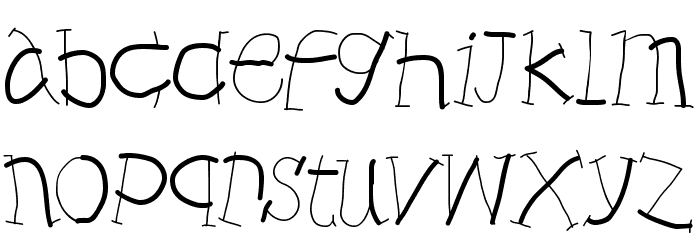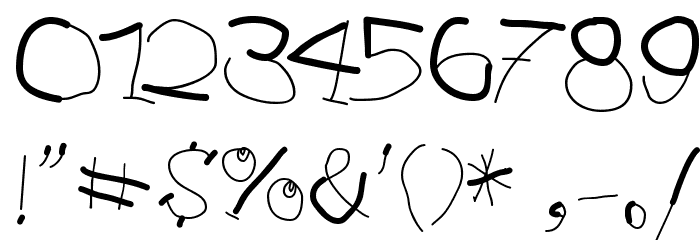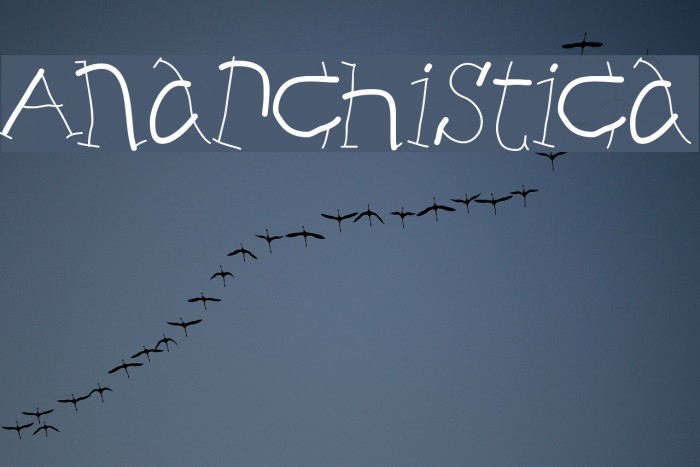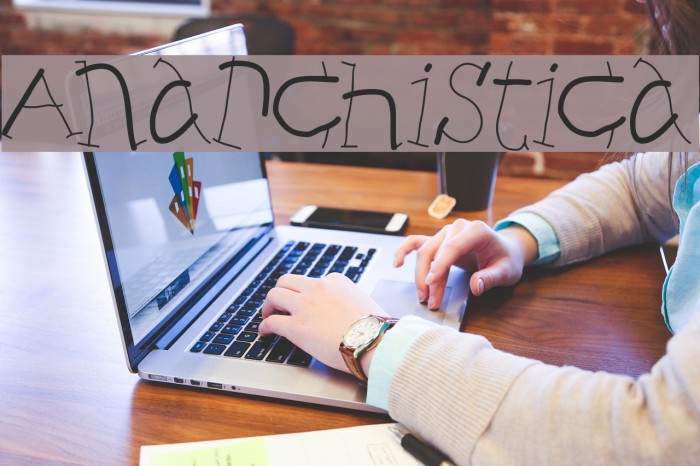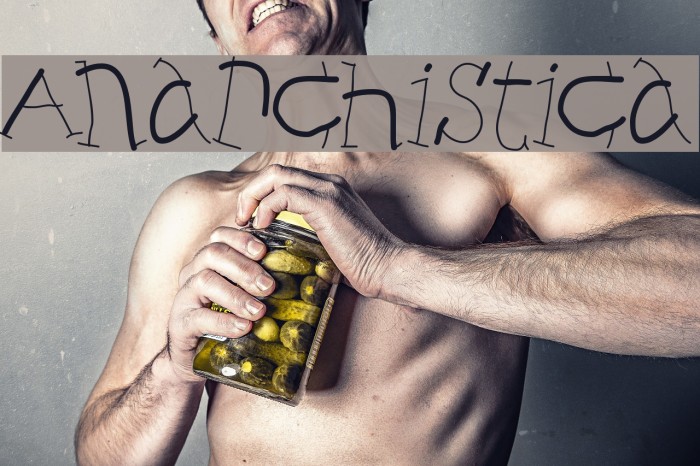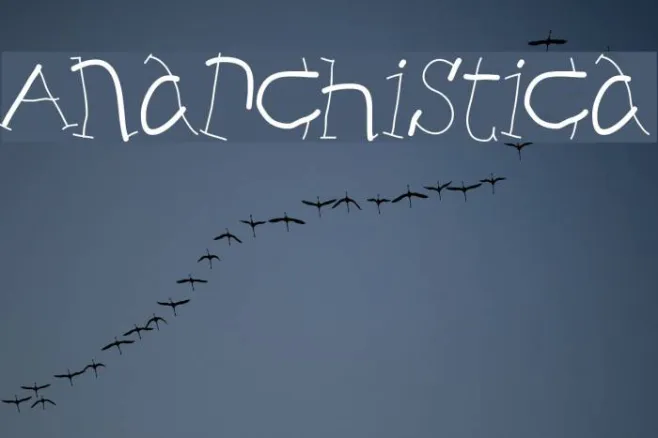
Anarchistica Font
This font exudes a rebellious and unconventional spirit, characterized by its irregular and playful letterforms. Each character appears hand-drawn, with varying stroke thicknesses and quirky angles that give it a dynamic and energetic feel. The uppercase and lowercase letters maintain a consistent style, with exaggerated curves and unexpected twists that add to its unique charm. Numbers and special characters follow the same whimsical design, making the font suitable for creative and artistic projects. Its distinct personality makes it stand out, perfect for capturing attention and conveying a sense of individuality.
A playful, hand-drawn font with irregular, dynamic letterforms.
- Proposed Projects: Ideal for album covers, posters, artistic branding, and creative event invitations.
- Use Case: Headlines, Artistic projects, Branding